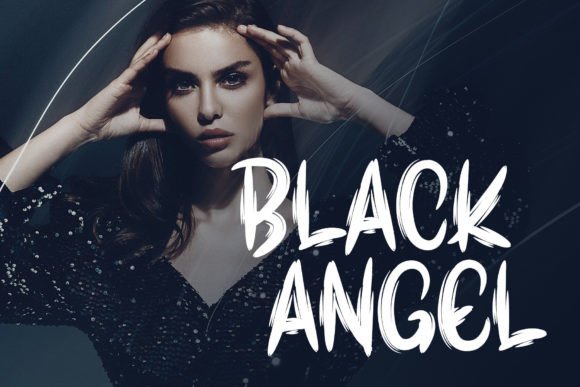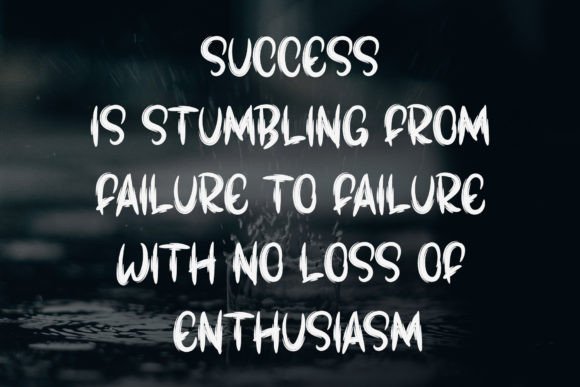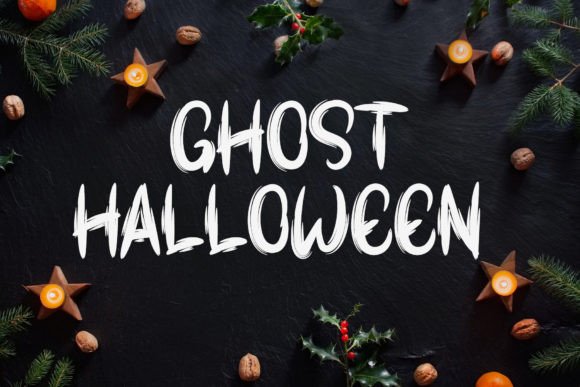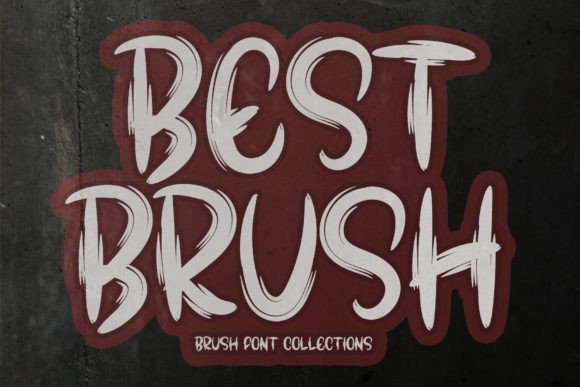
Introduction to Best Brush Font
Best Brush is a fun and whimsical display font.
A little bit quirky and a lot of fun, this font looks incredibly adept in a wide variety of contexts .
Key Features of Best Brush Font
Why Choose Best Brush Font?
Best Brush Font offers exceptional quality and versatility, making it a valuable addition to your design toolkit. Whether you’re creating for personal projects or commercial use, Best Brush Font delivers professional results.